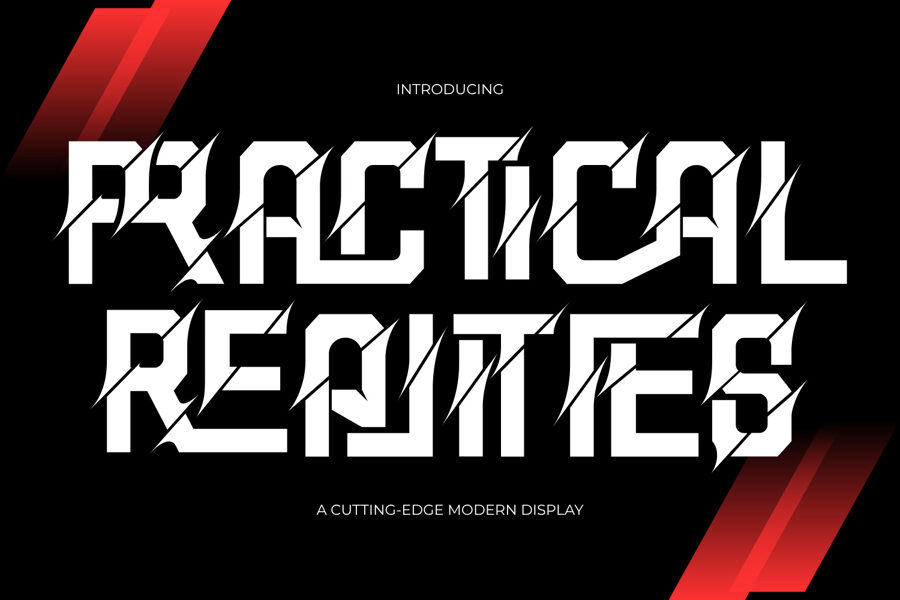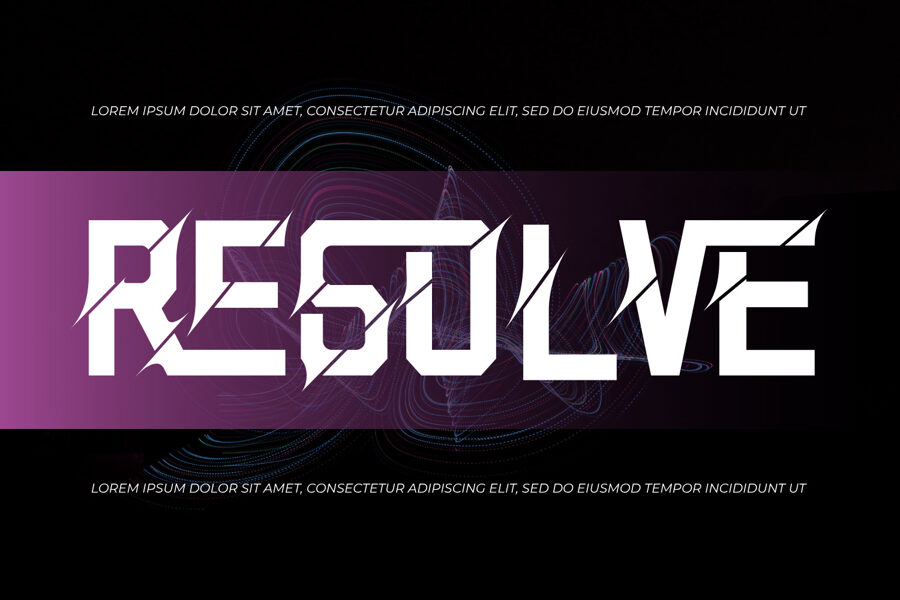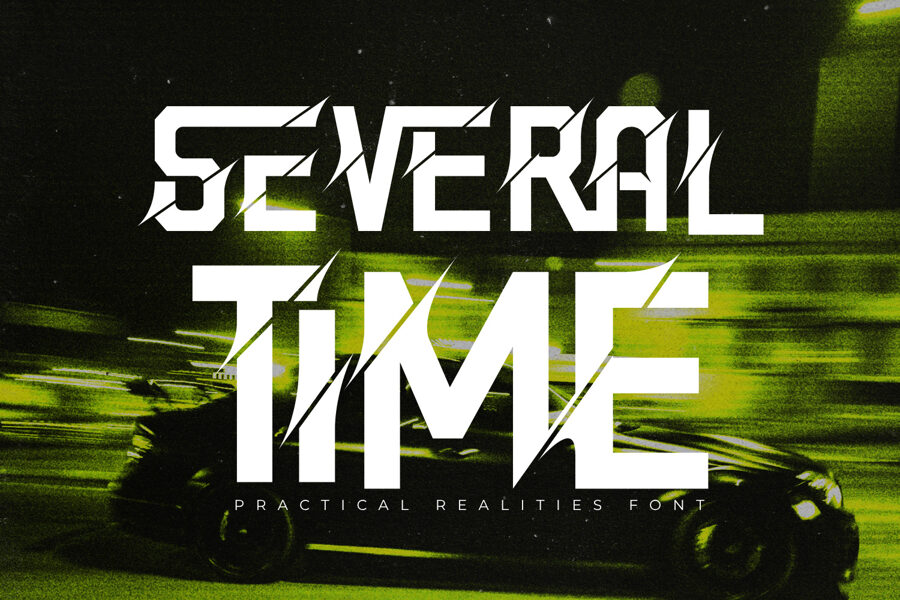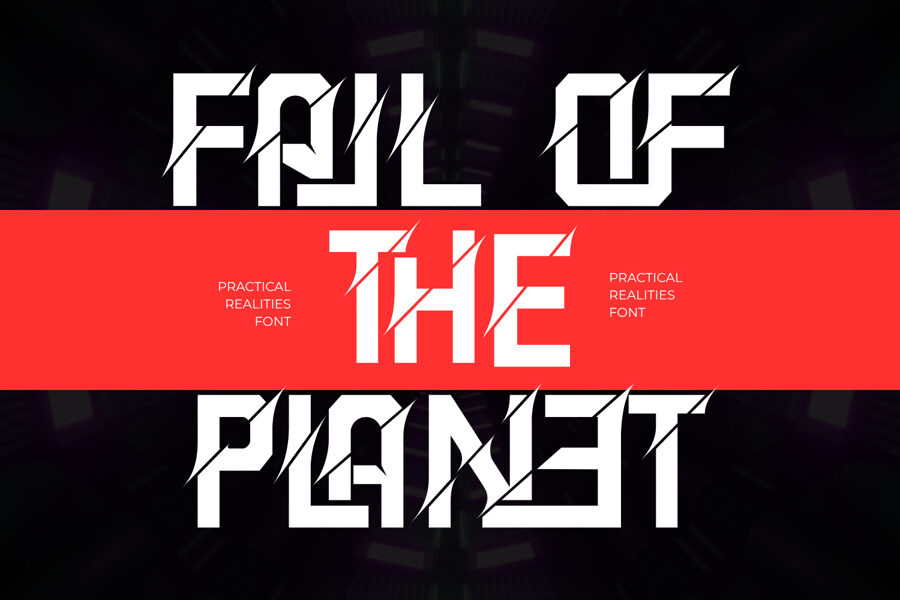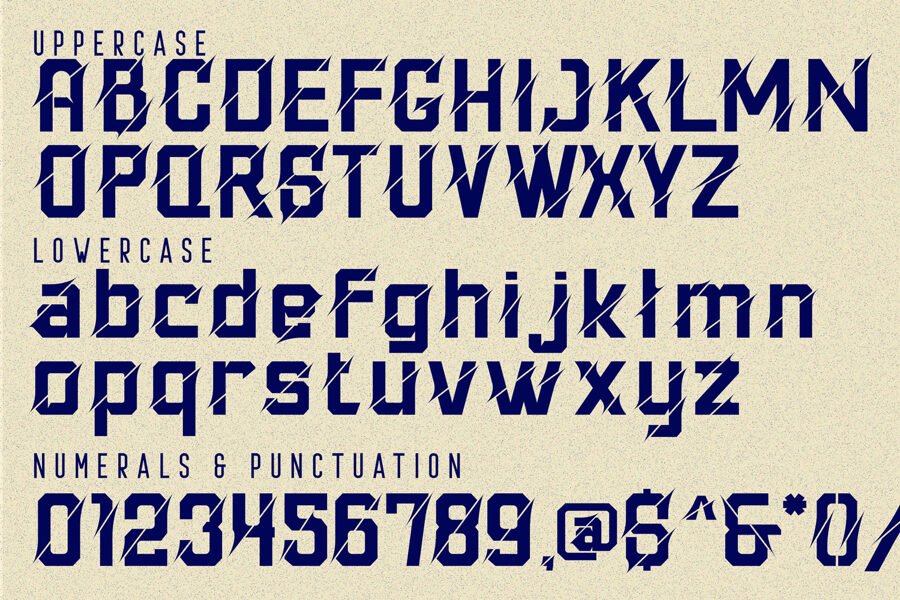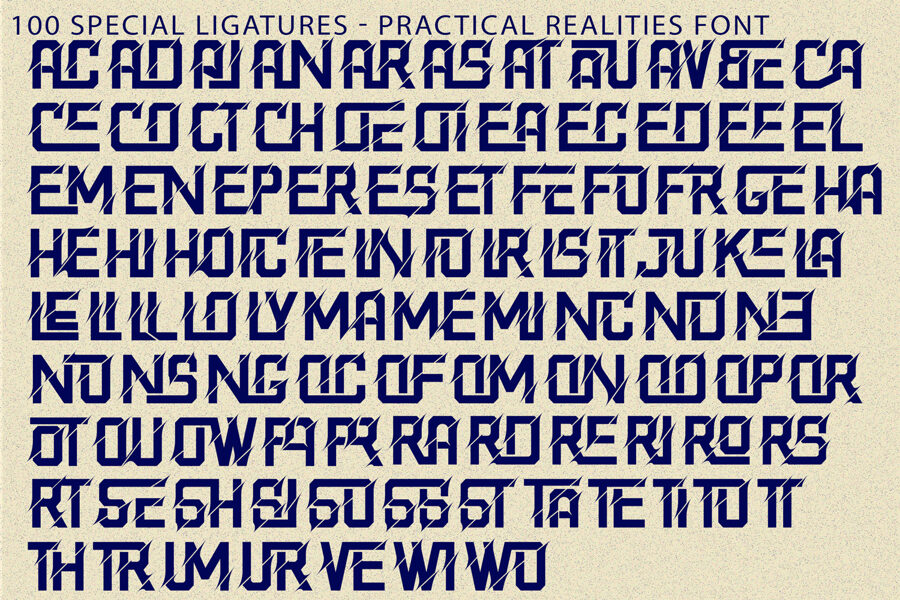
Practical Realities is a bold futuristic display font engineered for high-impact visual communication. Featuring powerful geometric letterforms, sharp angular construction, and distinctive slash-cut details, this typeface creates a dynamic sense of speed, energy, and technological innovation.
Inspired by cyberpunk culture, esports branding, sci-fi technology, and modern industrial design, Practical Realities is perfect for gaming logos, esports teams, futuristic branding, movie posters, action titles, automotive graphics, technology startups, sports apparel, digital products, album covers, and high-energy promotional materials.